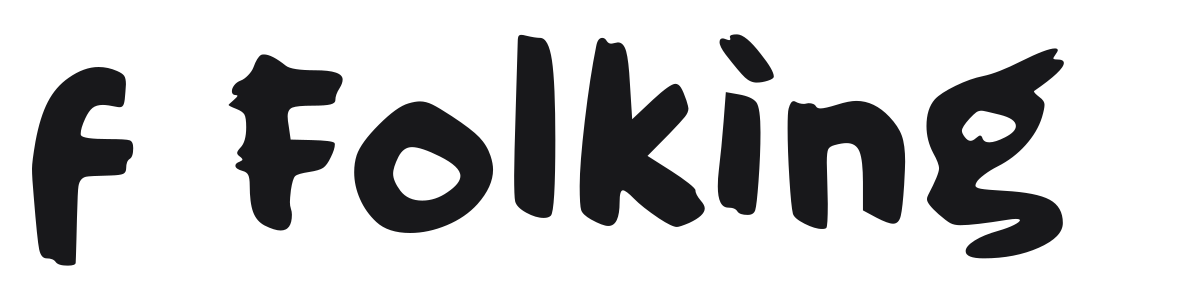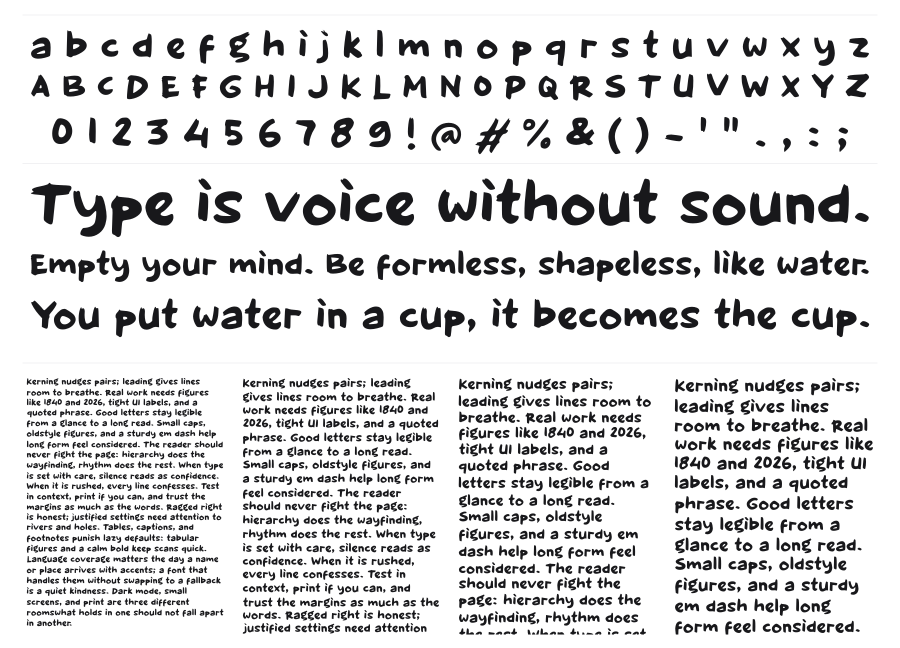
f Folking
Folking is a bold brush display font with thick, rough-edged strokes and an unmistakably hand-painted energy. The irregular ink texture and slightly wobbly construction give it a relaxed, street-poster quality that feels authentic rather than polished. It carries a lot of personality at large sizes without trying too hard.